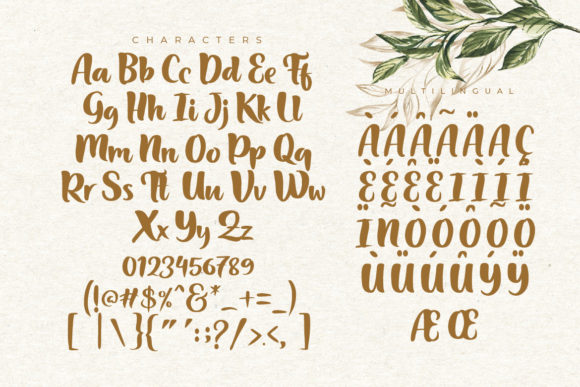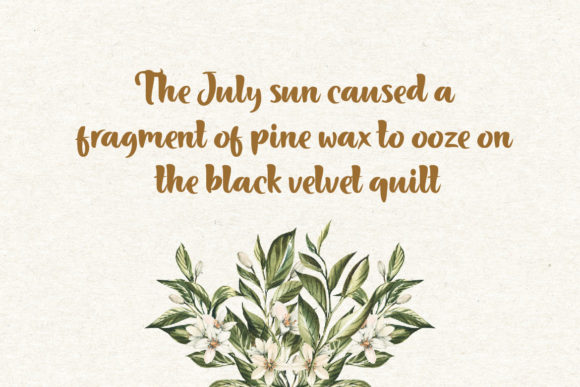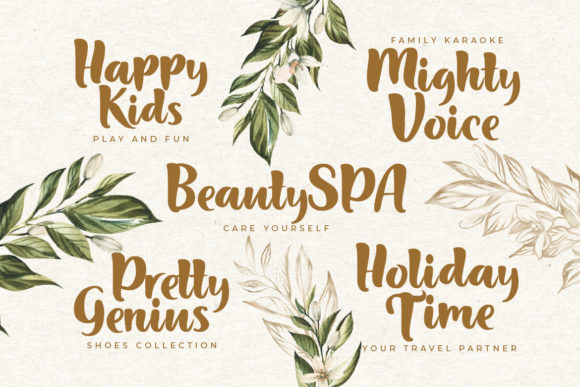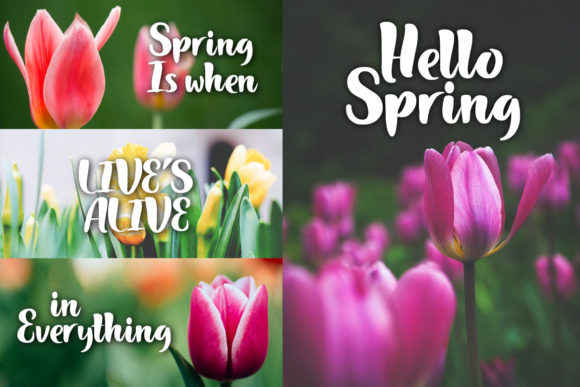
Hello Spring Font
About Hello Spring Font
Hello Spring is a chic and refined script font that embodies sophistication and elegance. With its stylish alternates and ligatures, this font is the perfect match for a wide range of projects. Whether you’re working on branding materials, packaging, invitations, social media graphics, or any other creative endeavor, Hello Spring adds a touch of class and style to your designs. Its flowing letterforms and intricate details create a visually appealing and captivating effect. Embrace this font and let it elevate your projects with its sophistication and versatility, creating a stunning visual impact that will leave a lasting impression on your audience.